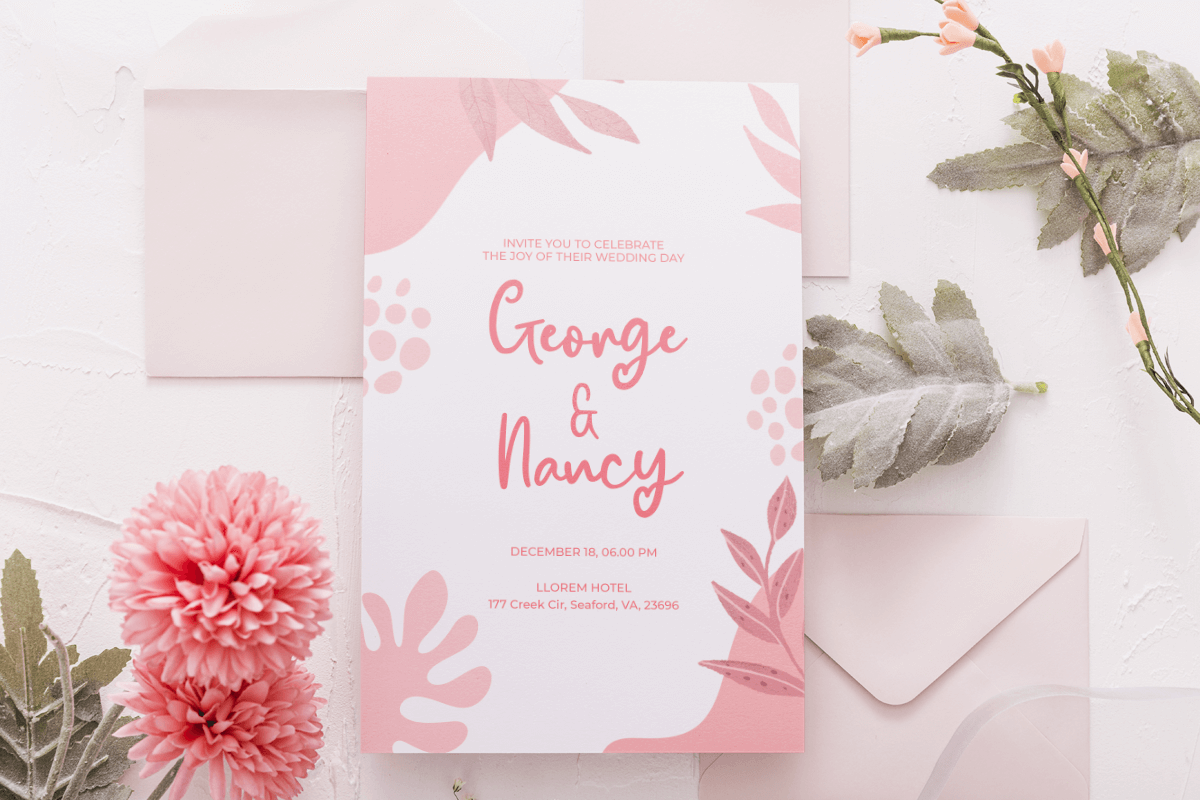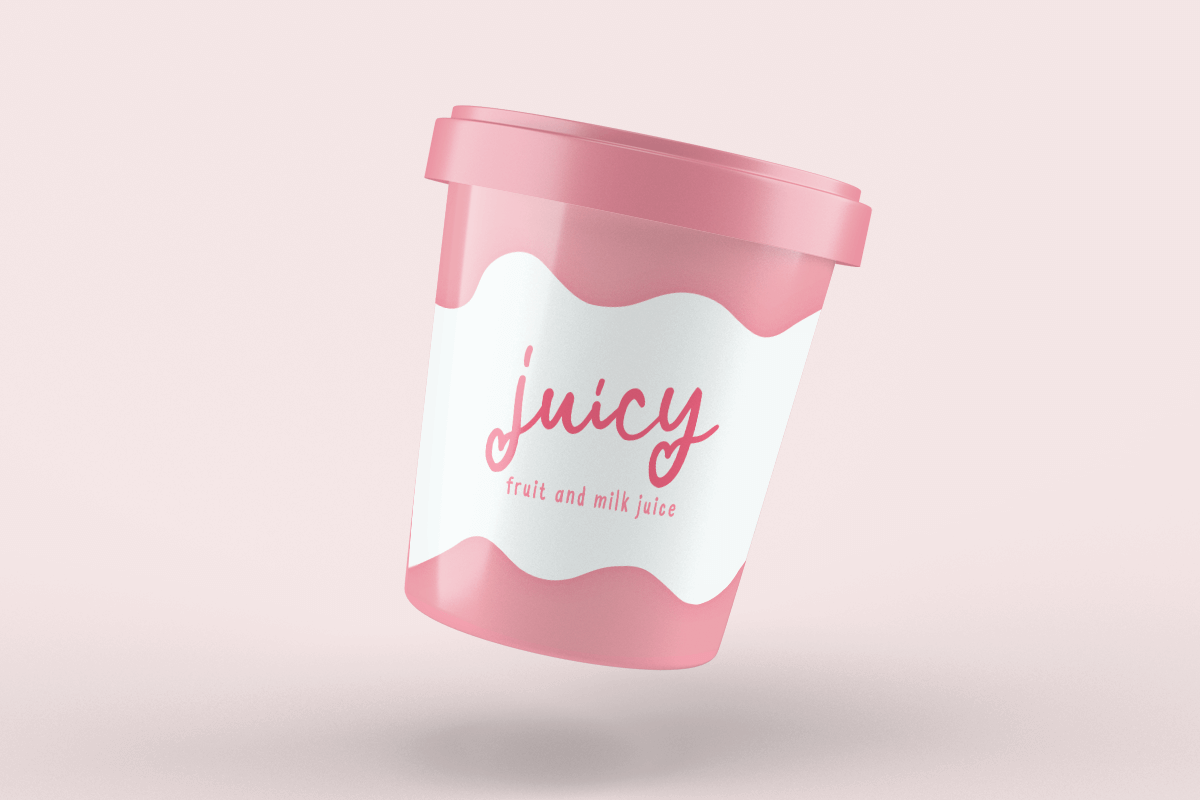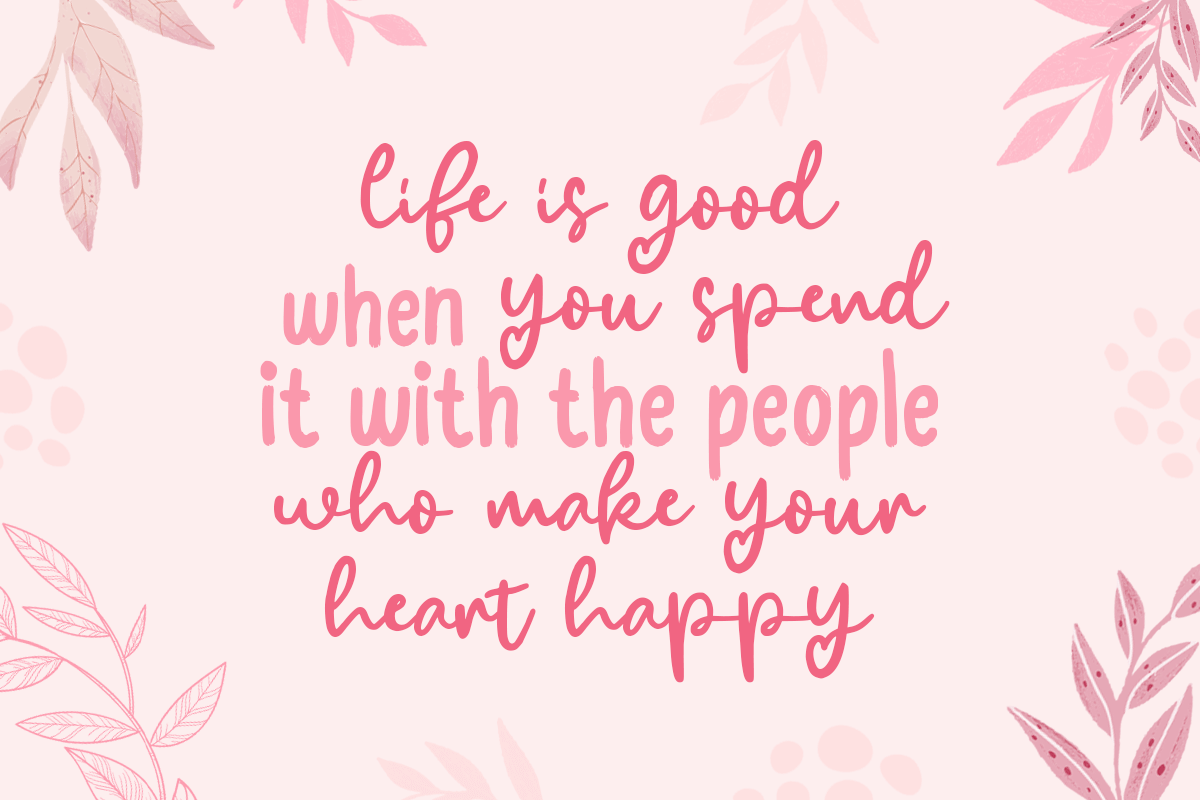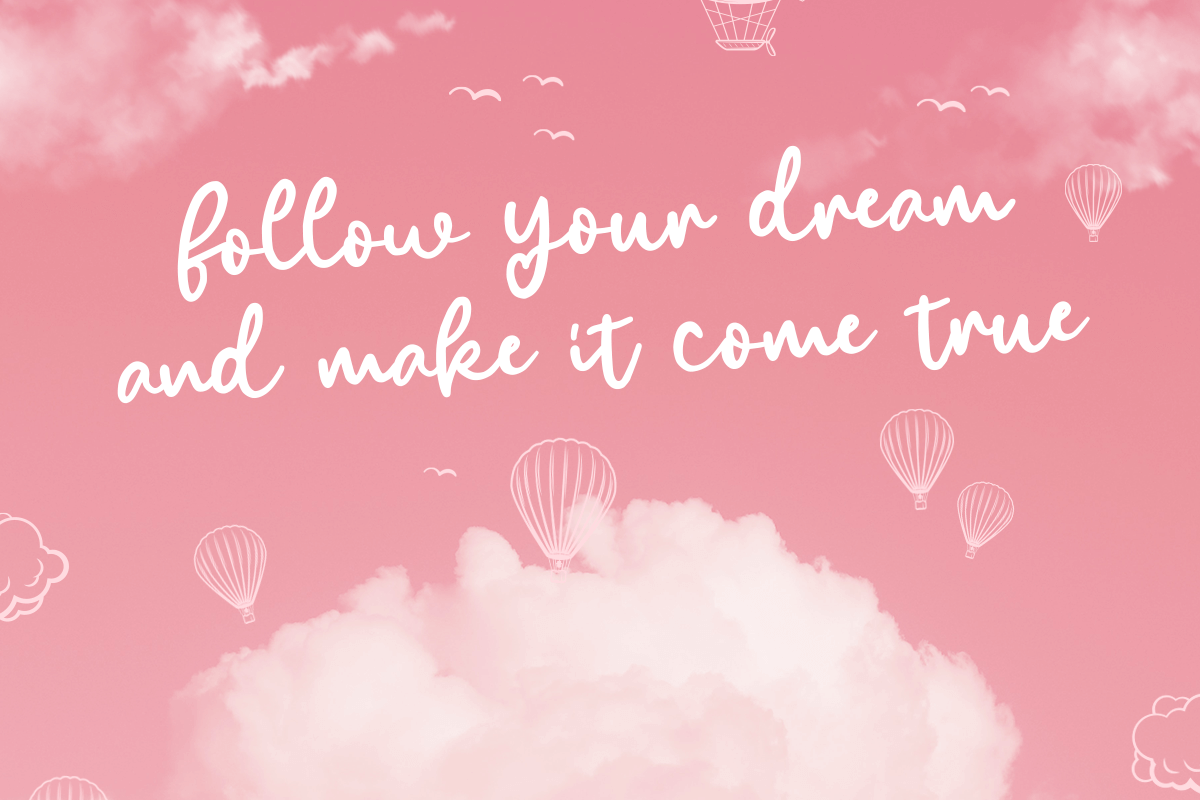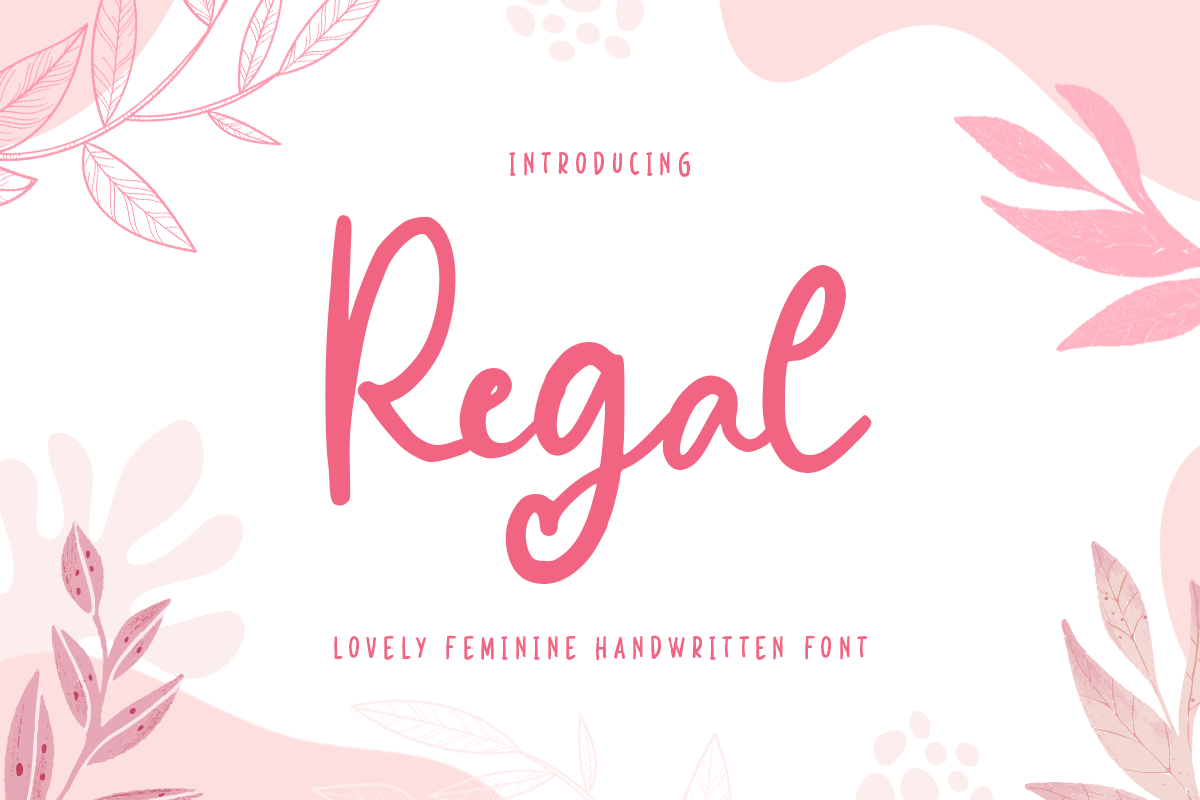
Regal
-Lovely Feminine Handwritten Font
Regal
Regal is Lovely Feminine Handwritten Font with cute and feminine style that inspired from September month. This font specially crafted for your branding, quotes design projects or cute logo, unique, modern for any designs such as print, merchandise, and so many more with easy to use but unique results are so playful and feminine.